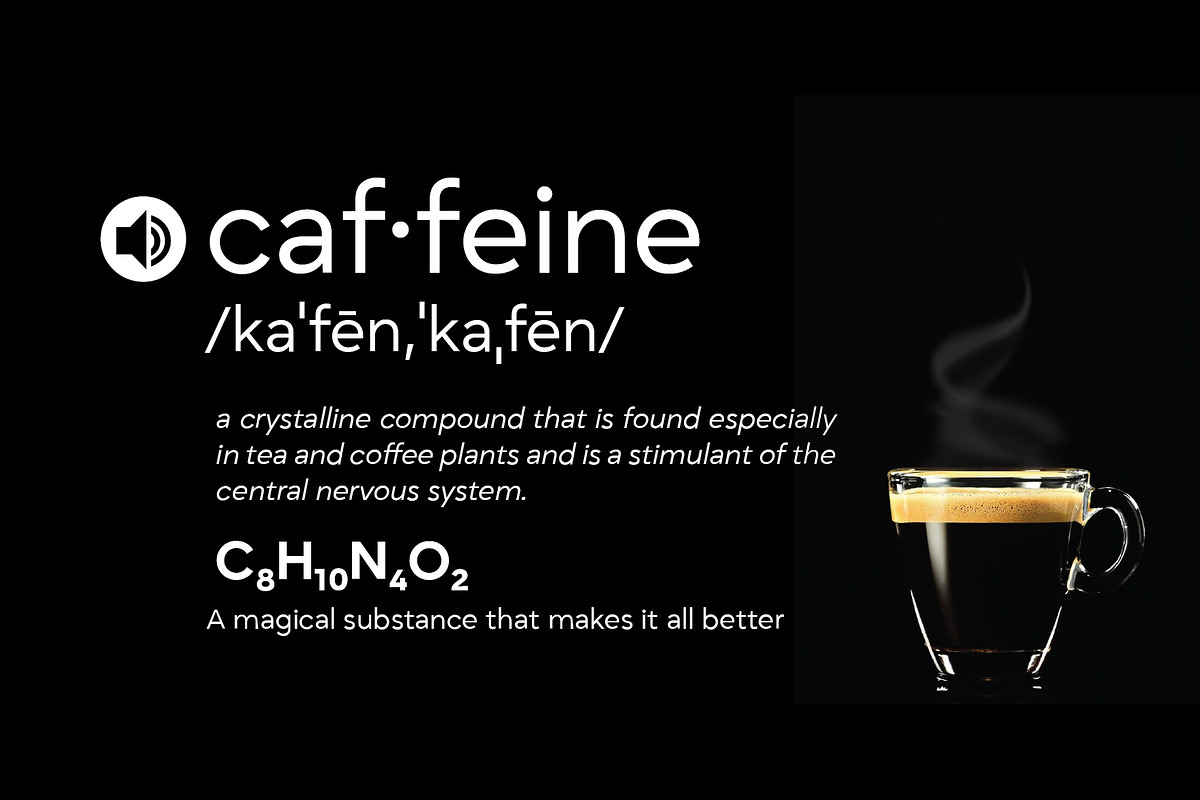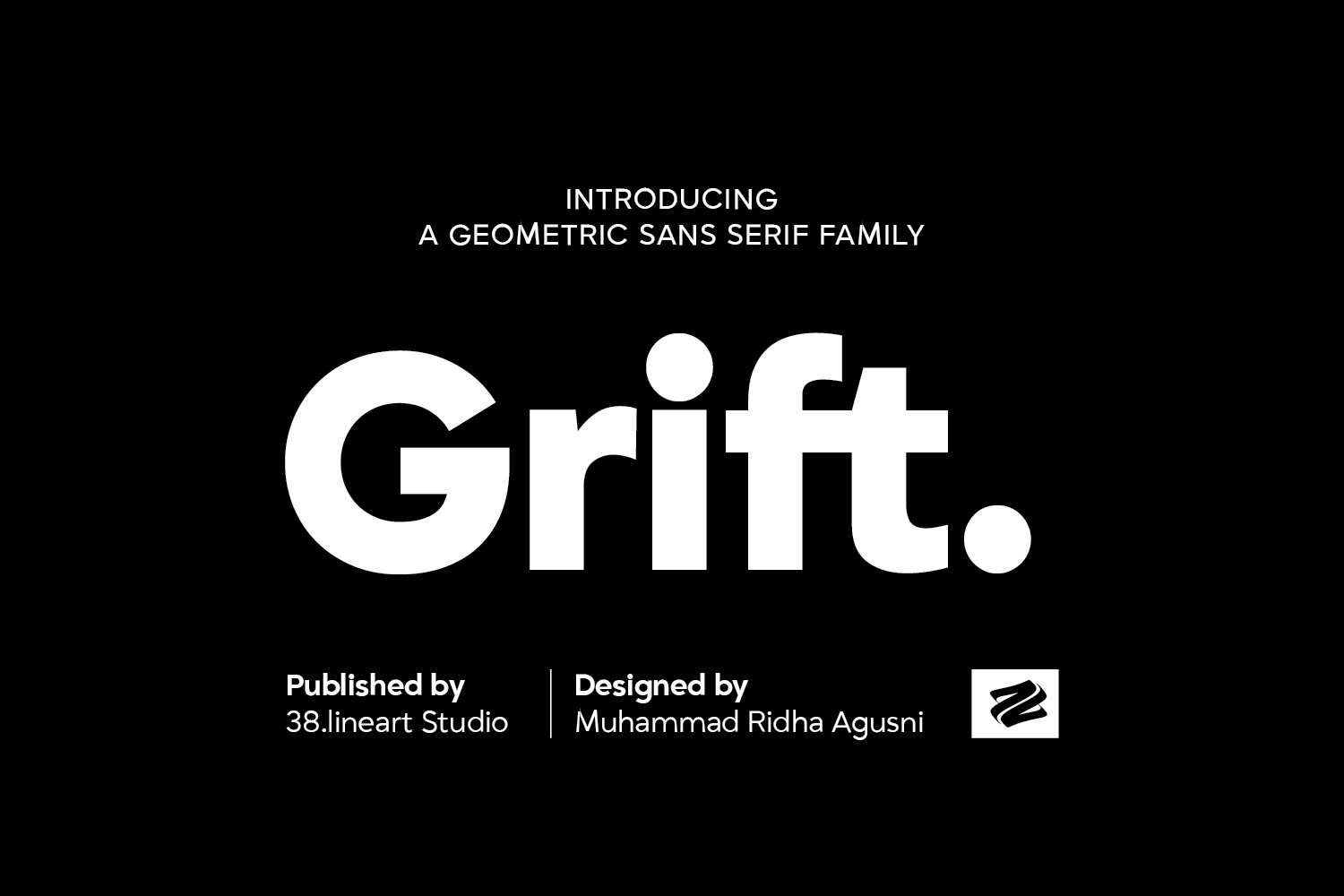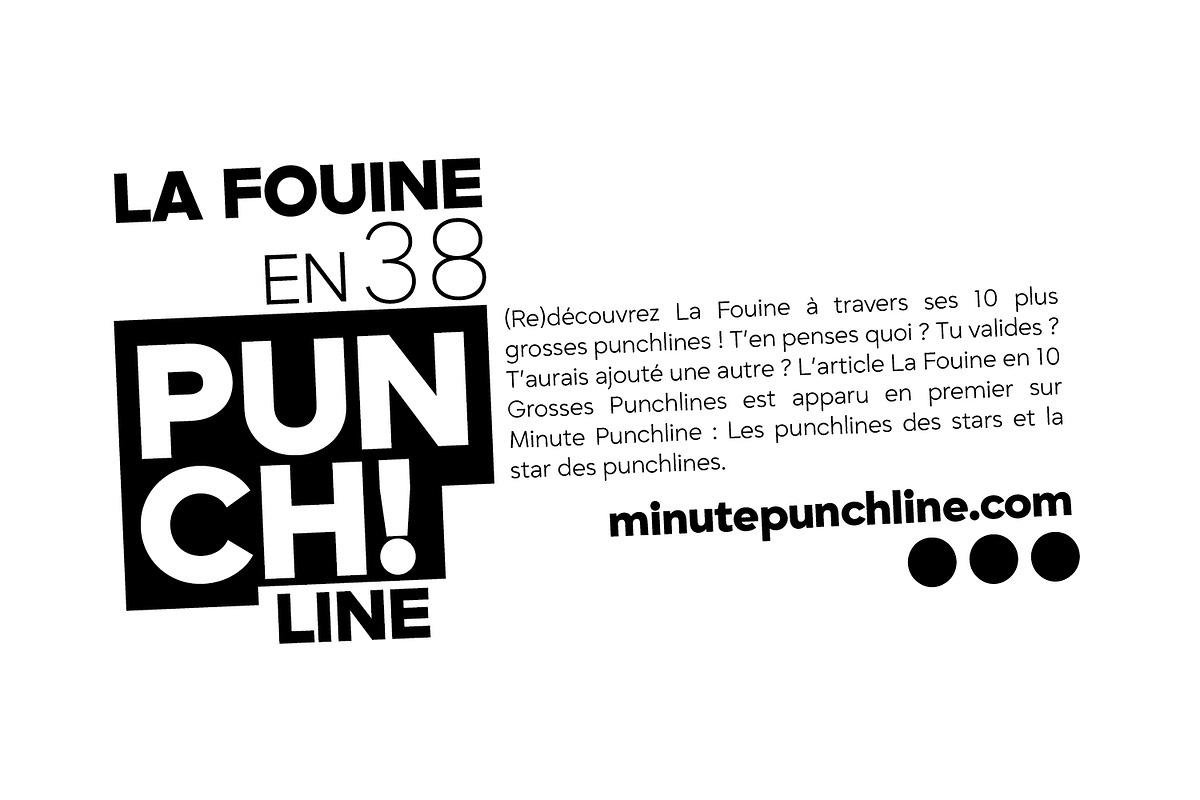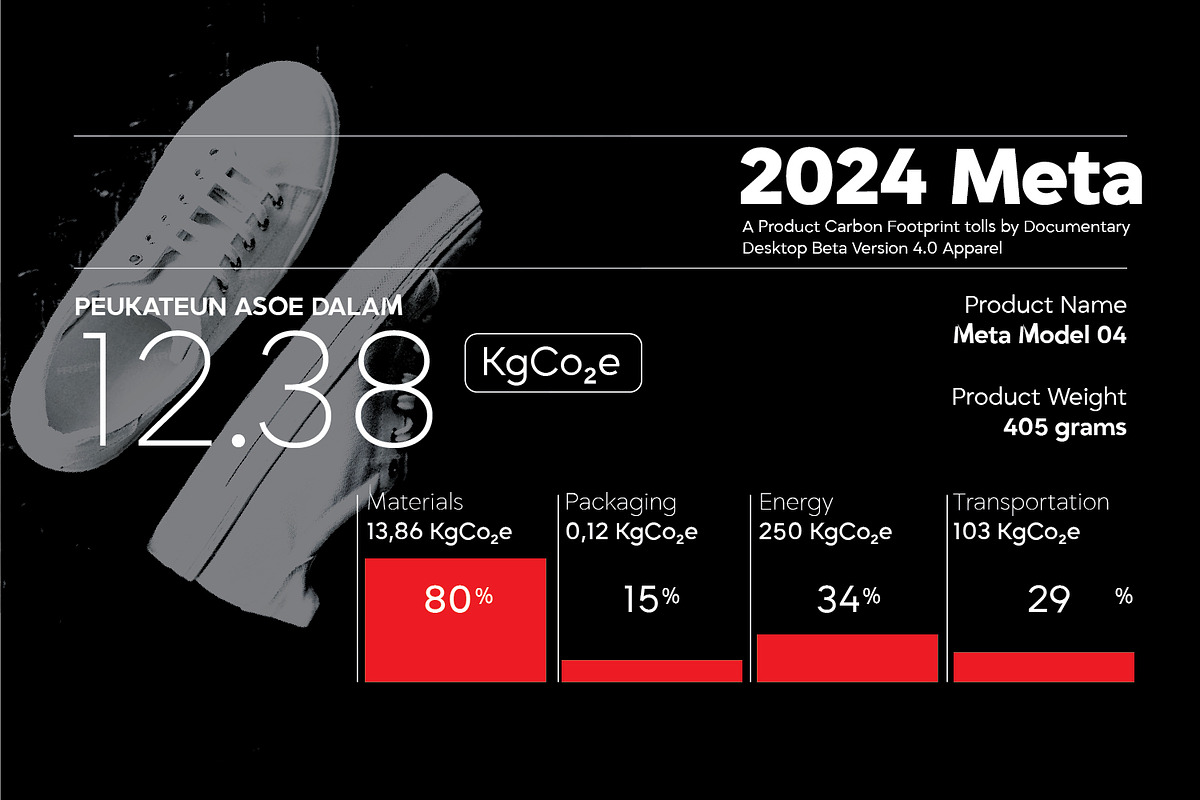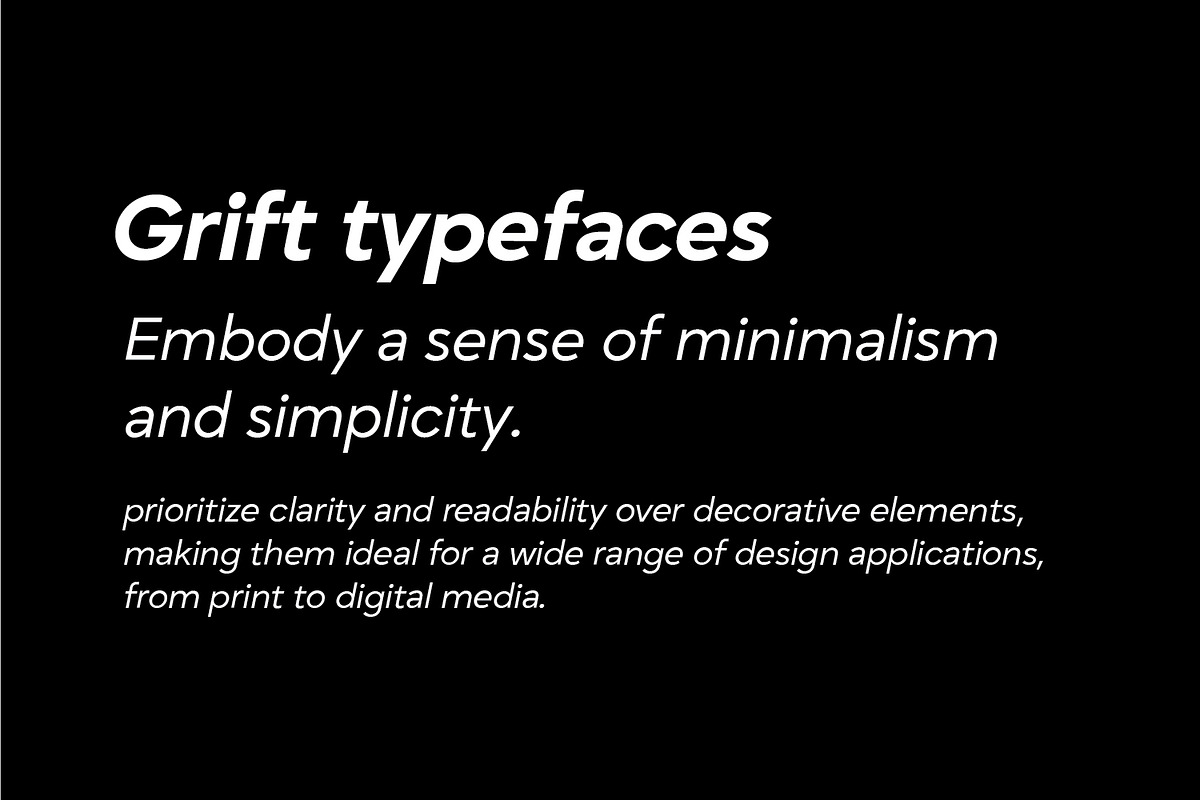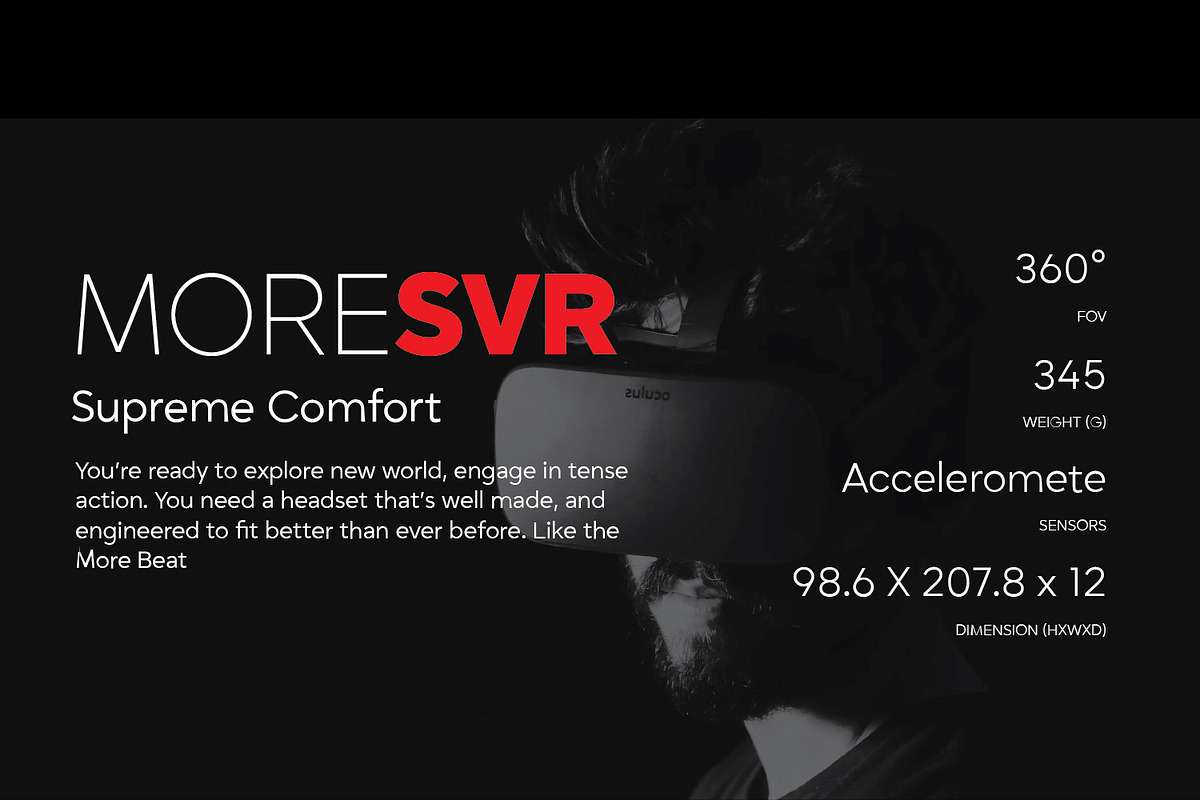
Grift - Geometric Typeface
Grift Geometric Sans Serif font Family epitomizes modernity, offering designers a versatile toolkit with nine weights, ensuring adaptability across diverse projects. Its clean lines and balanced proportions deliver a polished aesthetic, ideal for branding, editorial layouts, and digital interfaces. With a focus on readability and clarity, Grift excels in conveying messages effectively, while distinctive italics add style without compromising geometric integrity. From editorial spreads to digital interfaces, Grift empowers designers to create impactful and cohesive typographic solutions.